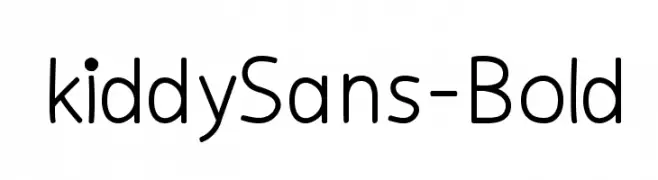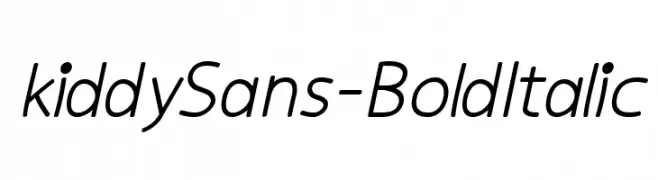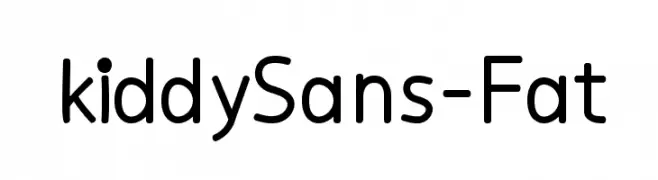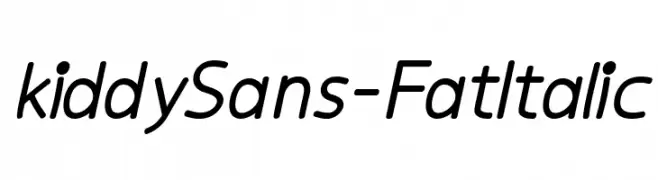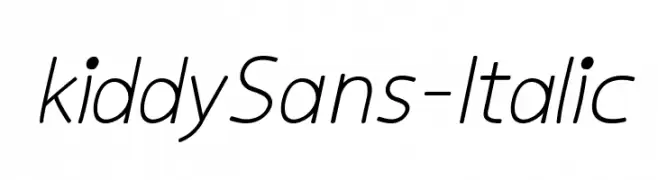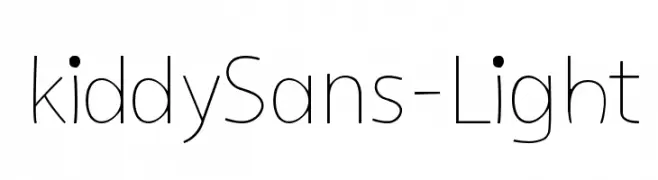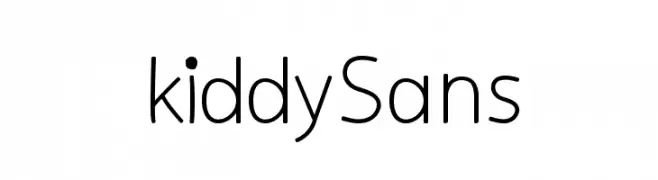
kiddySans-Fat Font
Font by Manuel Viergutz - Typo Graphic Design - www.typographicdesign.de
A playful, rounded font with bold, smooth curves and a friendly appearance.
kiddySans-Bold Font
Font by Manuel Viergutz - Typo Graphic Design - www.typographicdesign.de
A playful, rounded sans-serif font with a clean and modern look.
kiddySans Font
Font by Manuel Viergutz - Typo Graphic Design - www.typographicdesign.de
A modern, playful sans-serif font with rounded characters.
kiddySans-Light Font
Font by Manuel Viergutz - Typo Graphic Design - www.typographicdesign.de
A clean, minimalist font with a light weight and friendly roundness.
kiddySans-FatItalic Font
Font by Manuel Viergutz - Typo Graphic Design - www.typographicdesign.de
A playful, bold, and italic typeface with rounded edges and smooth curves.
kiddySans-Italic Font
Font by Manuel Viergutz - Typo Graphic Design - www.typographicdesign.de
A sleek, modern italic font with smooth curves and consistent stroke width.
kiddySans-BoldItalic Font
Font by Manuel Viergutz - Typo Graphic Design - www.typographicdesign.de
A playful, bold italic sans-serif font with smooth, rounded characters.
kiddySans-LightItalic Font
Font by Manuel Viergutz - Typo Graphic Design - www.typographicdesign.de
A sleek, modern, and slightly italicized font with thin strokes and a minimalist design.